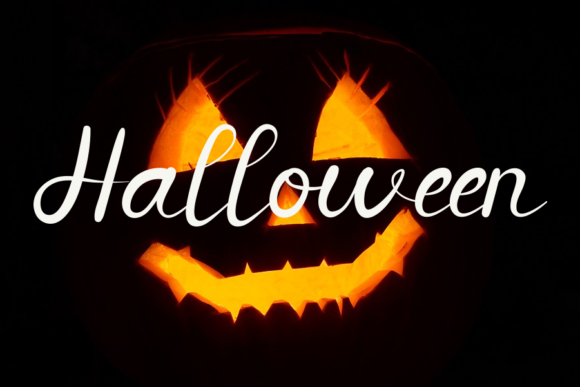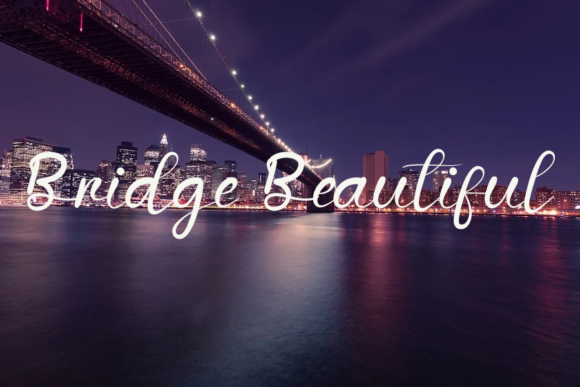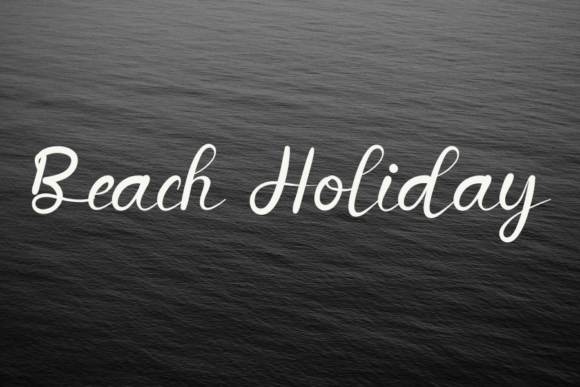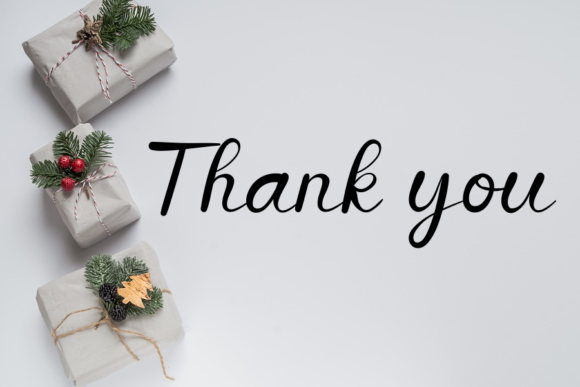
Christmas Font
Christmas is a cursive and elegant script font. Fall for its ravishing style and use it to create gorgeous wedding invitations, beautiful stationary art, eye-catching social media posts, and much more!